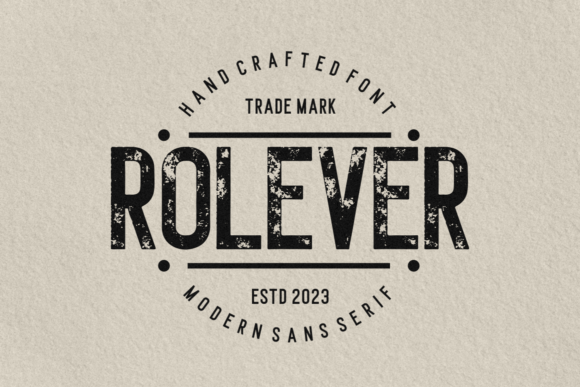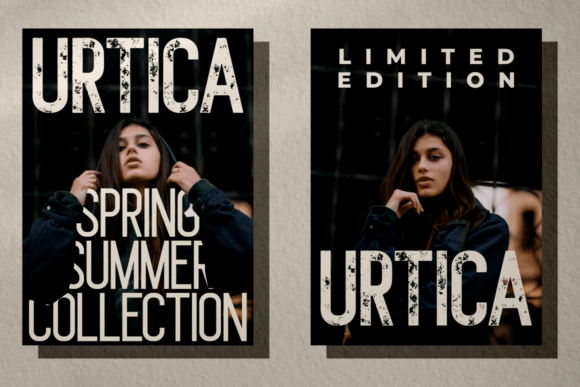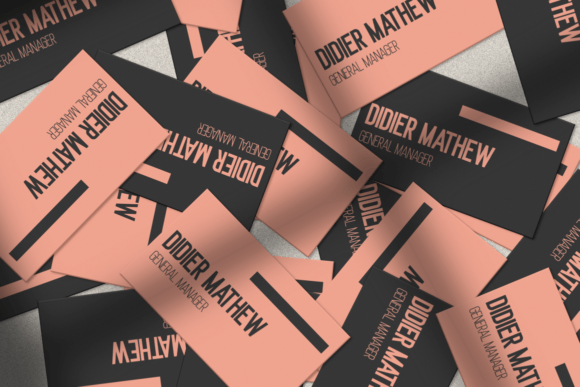
Introduction to Rolever Font
You know that moment when you’re working on a creative project, and the perfect font can make all the difference? That’s exactly what happens when you discover the Rolever Font – a modern sans serif font that elevates your designs to the next level.
Whether you’re a seasoned designer or just starting out, the Rolever Font is a valuable addition to your design resource toolkit. With its three distinct weights – regular, semibold, and bold – you have the flexibility to convey different levels of emphasis in your projects. Plus, the availability of both clean and textured versions gives you even more creative freedom. From posters to logos, titles to branding, the Rolever Font is a high-quality design solution that’s sure to make your projects stand out.
Key Features of Rolever Font
- Features a transparent background, allowing for easy integration into any design or project.
- Designed with a focus on readability and aesthetics, making it perfect for use in logos, typography, and more.
- Available in a range of sizes, with a recommended resolution of 300 DPI for high-quality printing and digital use.
- Unique characteristics include a modern and sleek design, making it a popular choice for designers and artists.
- Can be easily scaled and customized to fit the needs of your creative project, ensuring a professional and polished finish.
Honest Review: Rolever Font
- Transparent background, making it easy to use in various design scenarios
- High quality, with crisp and clear typography
- Only available in a limited number of weights and styles
- Not suitable for use in complex, multi-font compositions
Overall, I’m pleased with the Rolever Font. While it may not be the most versatile font, its high quality and transparent background make it a great choice for simple designs. If you’re looking for a reliable design resource, the Rolever Font is definitely worth considering.
Rolever Font is commonly used in graphic design, branding, and advertising. Its unique design and transparent background make it an excellent choice for use in logos, brochures, and other marketing materials.
Alternatives to Rolever Font
Abril Fatface is a high-quality, elegant font ideal for creative projects that require a touch of sophistication. It’s perfect for headings and titles in design resources, especially those with a vintage or classic feel.
When to use: For formal and elegant designs, especially in headings and titles.
How it compares to Rolever Font: Abril Fatface has a more classic and elegant feel compared to the modern and minimalist look of Rolever Font.
Playfair Display is a luxurious font that’s perfect for high-end design resources. It’s ideal for headings, titles, and other text elements that require a sense of sophistication and elegance.
When to use: For high-end and luxurious designs, especially in headings and titles.
How it compares to Rolever Font: Playfair Display has a more luxurious and elegant feel compared to the modern and minimalist look of Rolever Font.
Great Vibes is a beautiful, elegant font that’s perfect for design resources that require a touch of sophistication. It’s ideal for headings, titles, and other text elements that need to stand out.